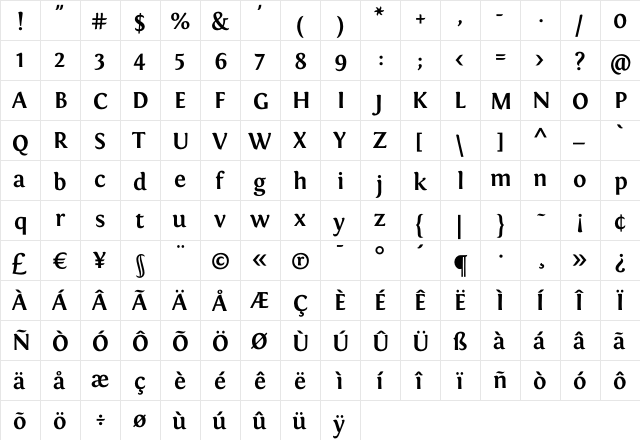
Fontin Bold Font Preview
Fontin Bold
Design Context for Fontin Typeface
Fontin is a composed and adaptable typeface that performs quietly and consistently across a wide range of design contexts. Its bold stroke weight gives it real presence on the page.